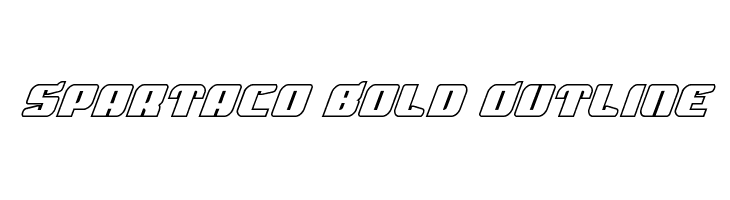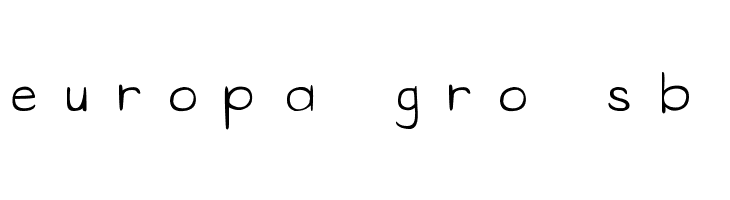
A decorative font with intricate patterns and a vintage feel.
A bold, playful font with eye-adorned uppercase letters and solid lowercase characters.
A bold, italicized serif font with a classic and elegant style.
A playful, bold handwritten font with rounded, smooth curves.
An elegant, flowing script font with classic calligraphy influences.
Casual handwritten font with rounded edges.
A playful, handwritten font with a casual and friendly style.
A futuristic, angular italic font with a sleek, modern design.
设计师偏爱 Zentyp Demo Regular, KABlokHead, ResavskaBGCyrillic Bold Italic, Leal italic and Sweet Signature,因为其造型干净、适用范围广—— 从品牌识别到落地页、海报都能胜任。